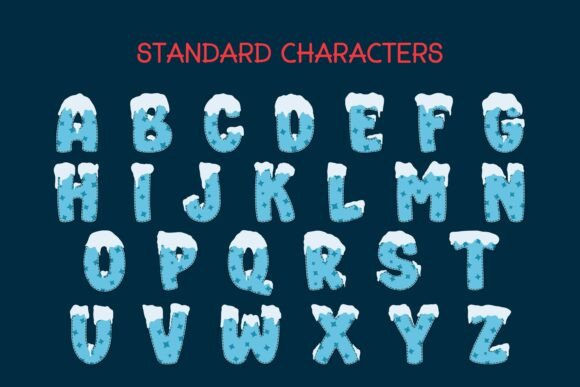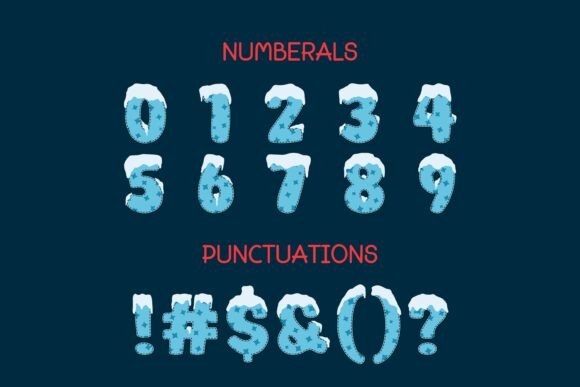
Introduction to Snow Cap Font
Snow Cap font is a charming, festive, and utterly unique color font (SVG/PNG) that transforms ordinary text into delightful, perfect for seasonal cheer.
๐ Bring the joy and texture of a handmade holiday gift to your typography with the Snow Cap Color Font, a wonderfully tactile display typeface This Snow Cap font features high-quality SVG color glyphs, masterfully illustrating each letter The Snow Cap typeface is ideal for crafting whimsical holiday headlines, unique gift tags, childrenโs book titles, and any design that needs an immediate, festive โwowโ factor.
Key Features of Snow Cap Font